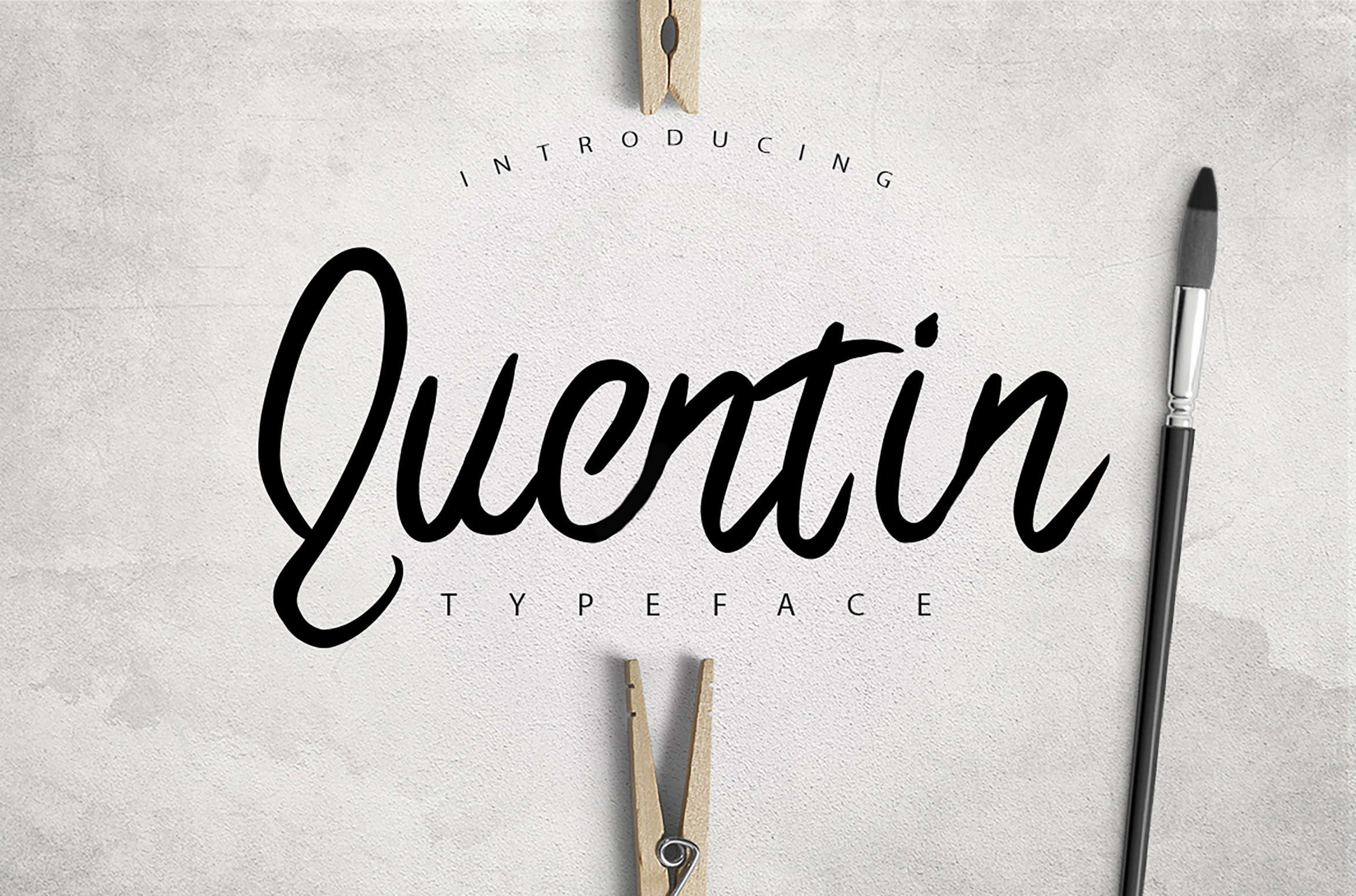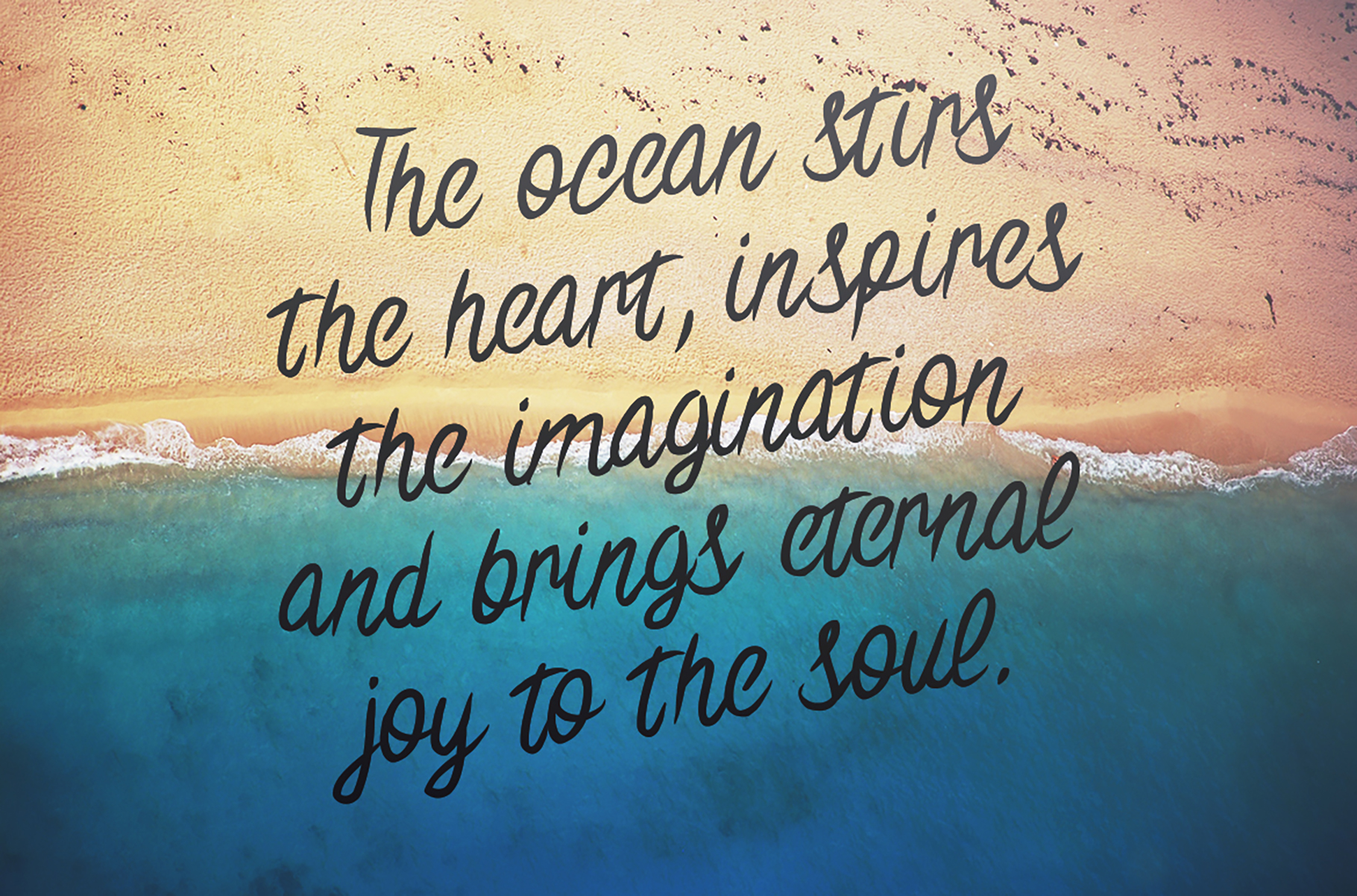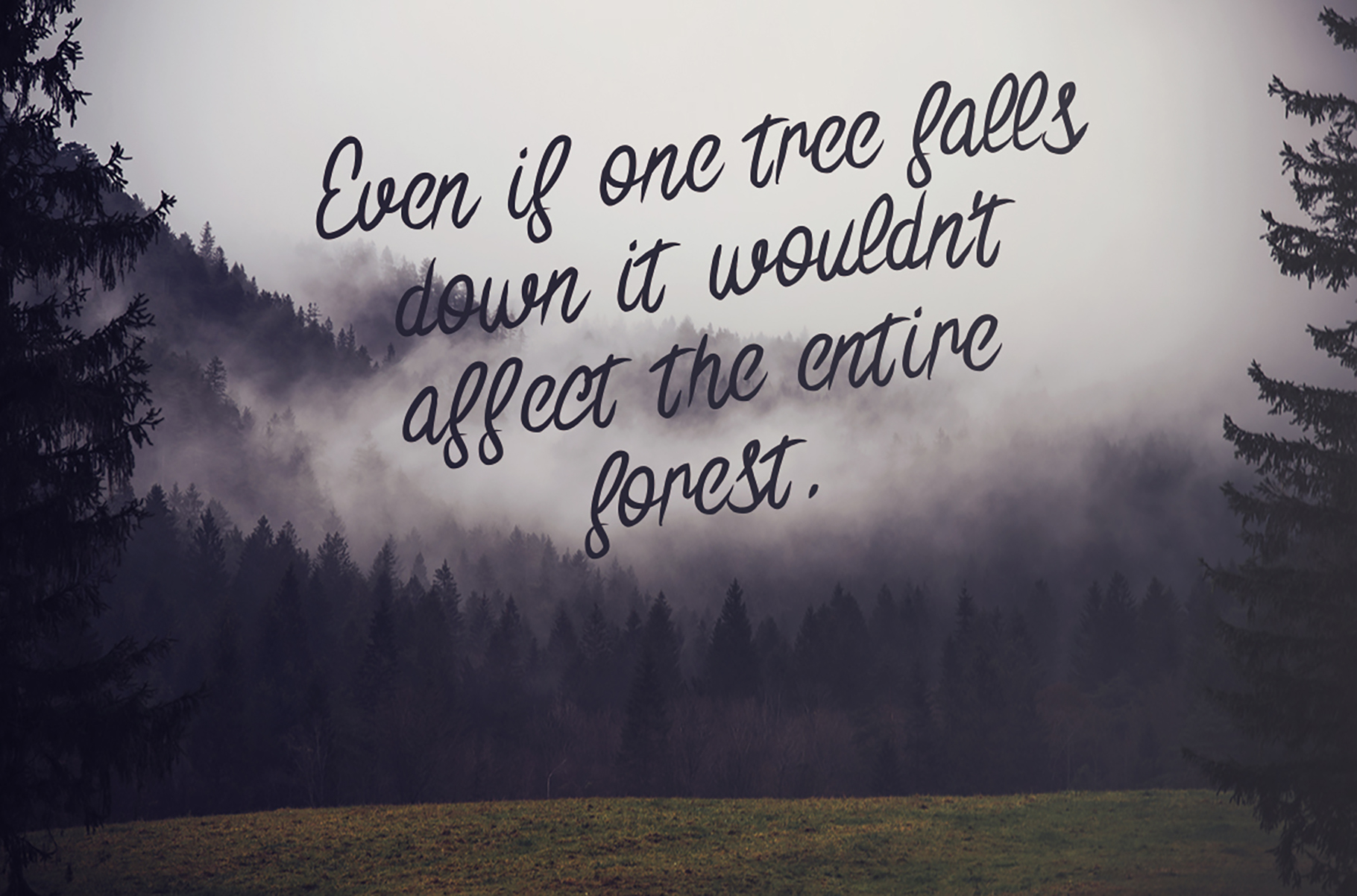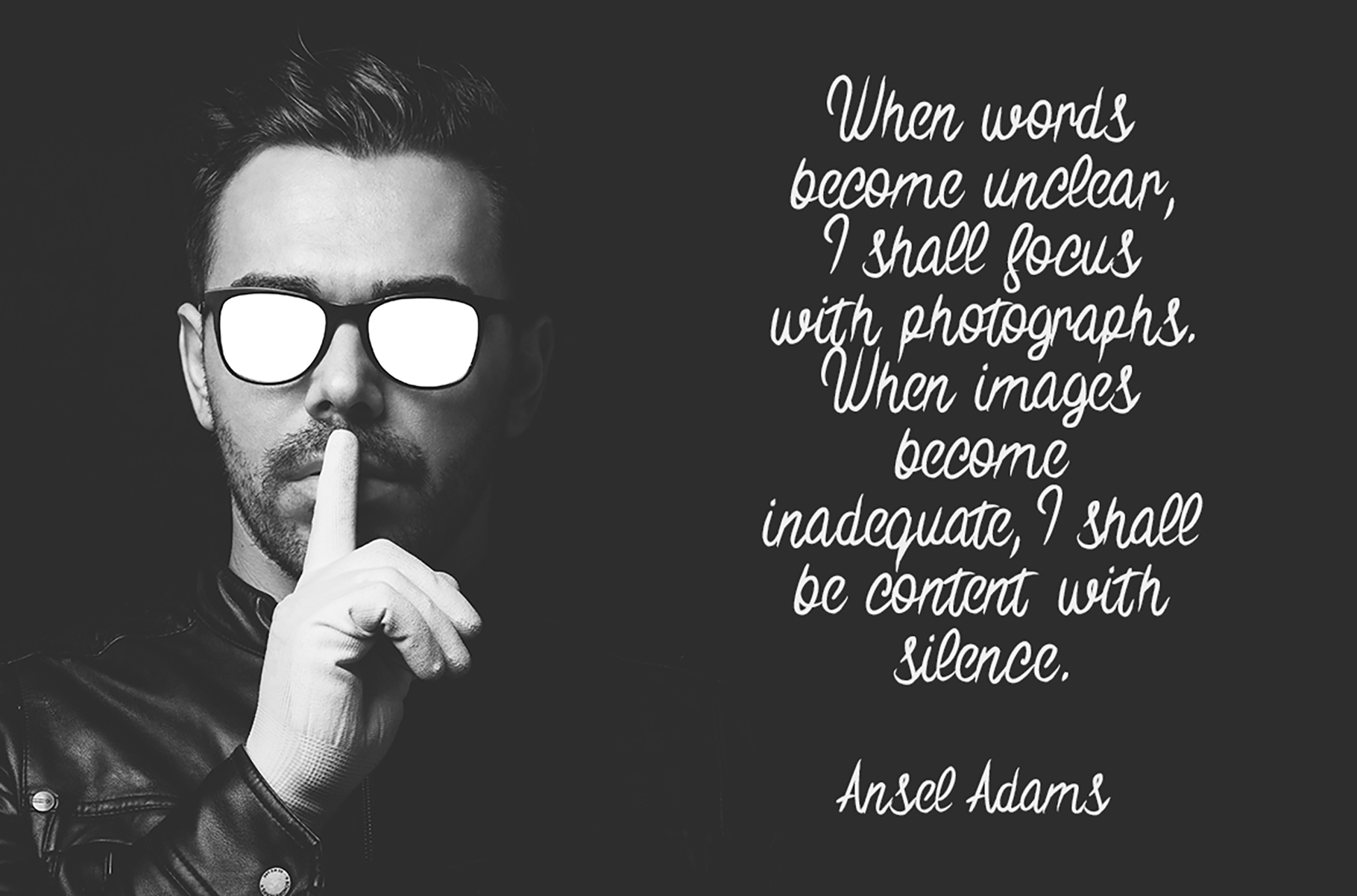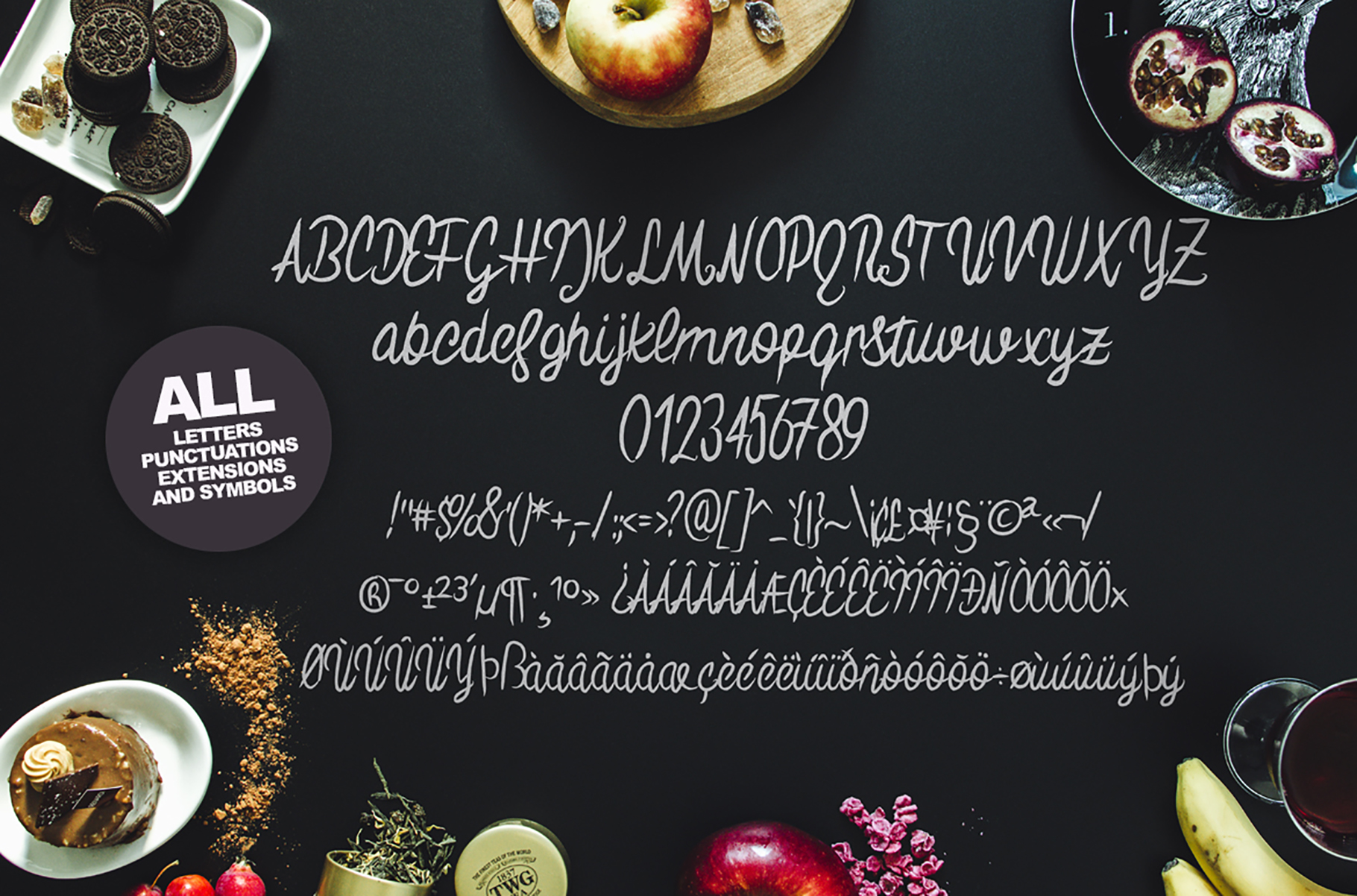
QUENTIN is a smooth hand-brushed font, include:
- All Punctuations
- All Symbols
- All Letters
- All Numbers
- All Extensions
The letters of the Quentin font match perfectly with each-other.
Languages: Albanian, Basque, Catalan, French, Italian, Polish, Breton, Chamorro, Danish, Dutch, English, Finnish, Frisian, Galician, German, Malagasy, Norwegian, Portuguese, Spanish, Swedish